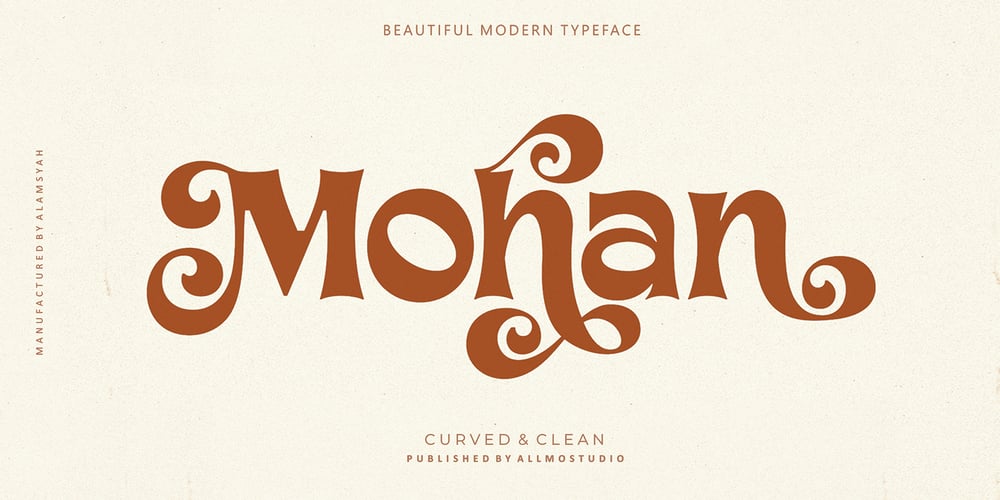
Mohan
Mohan font
Mohan Font Family was designed by Muhammad Nur Alamsyah and published by Allmo Studio. Mohan contains 1 styles and family package options. Mohan is a Bold Minimalist Elegant Fancy typeface font with tons of alternative characters, ornaments, multilingual support and unique ligatures. It’s a very versatile font that works great in large and small sizes.Perfectly fit for your logo, headings, branding, magazine, cover album, book cover, movie, apparel design, quotes, invitations, flyer, poster, greeting cards, product packaging, printed quotes, or simply as a stylish text overlays to any background image.